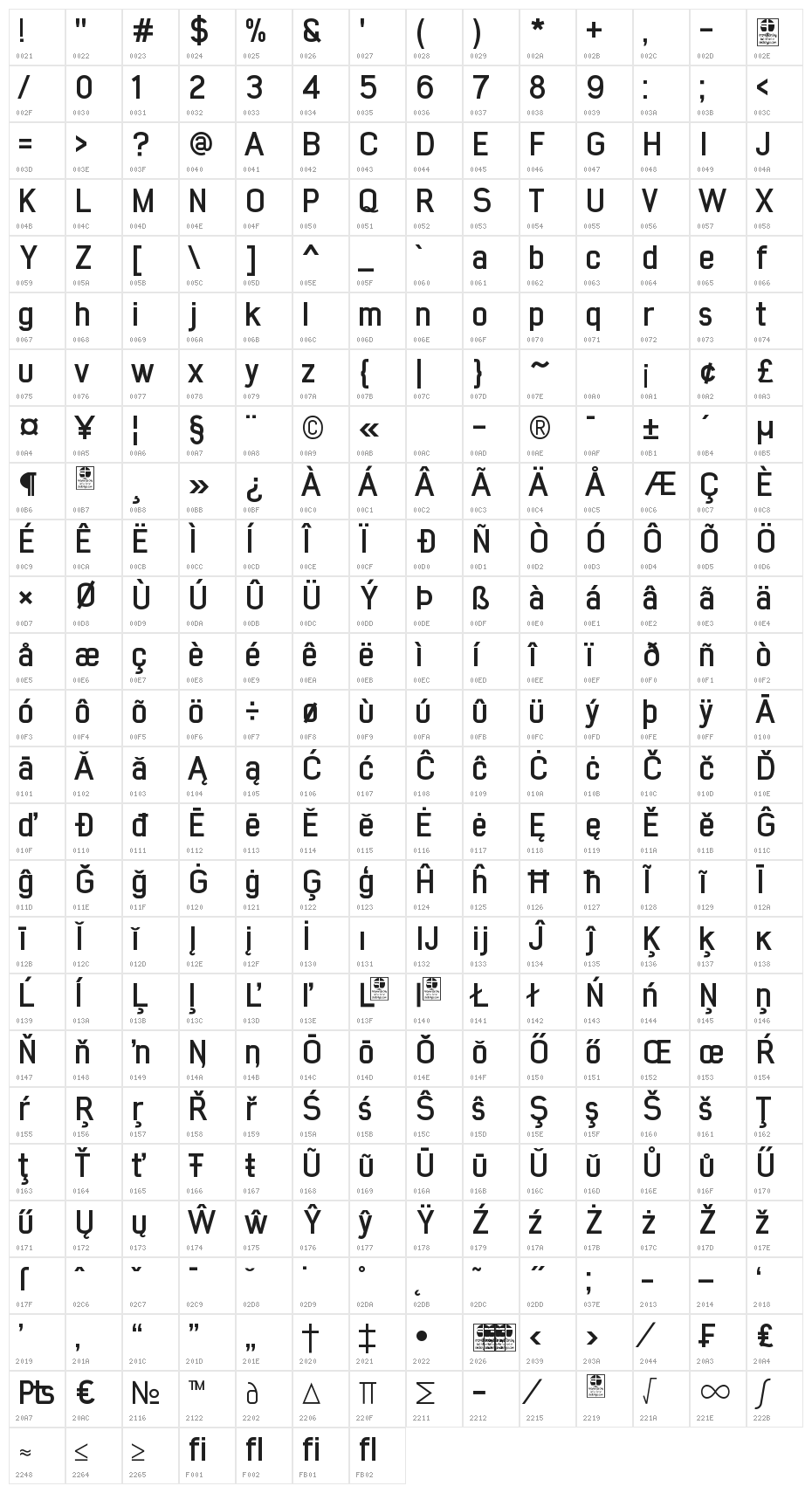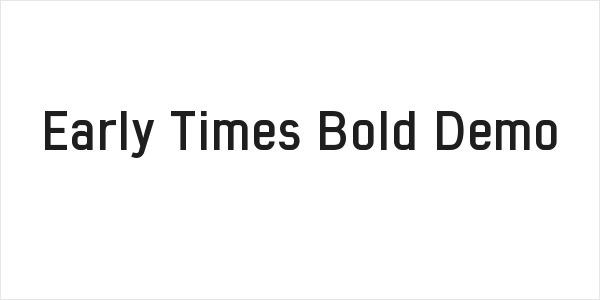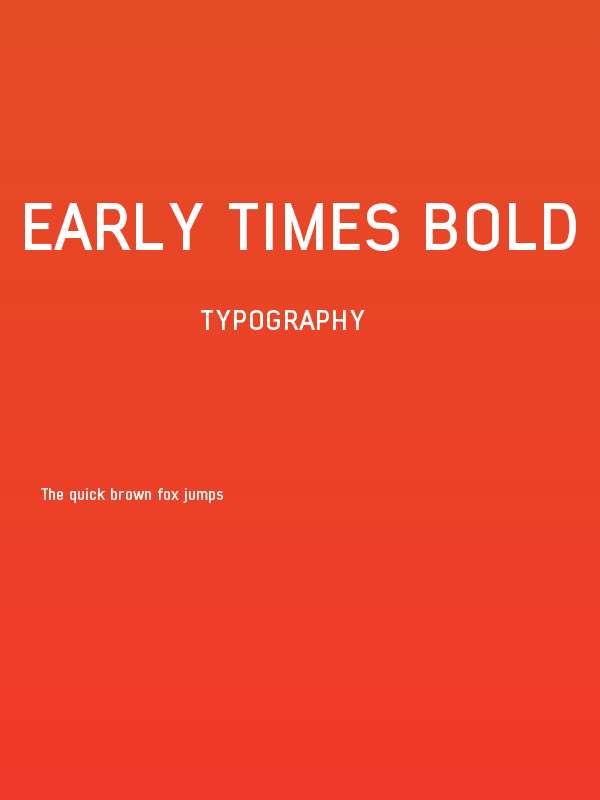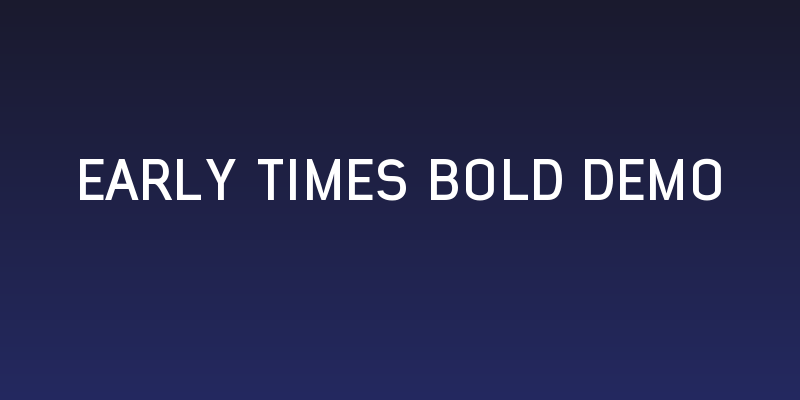
Early Times Bold Demo Font
Early Times Bold Demo Description
This font features a bold and clean design, characterized by its strong geometric shapes and uniform stroke widths. The uppercase and lowercase letters maintain a consistent height and width, providing a balanced and harmonious appearance. The numerals are clear and easily distinguishable, making them suitable for various applications. Special characters are well-defined, ensuring readability and versatility. The overall style is modern and professional, making it ideal for both digital and print media.
| Proposed Projects | This font is perfect for branding projects, headlines, posters, and digital media where a strong and clear typeface is required. |